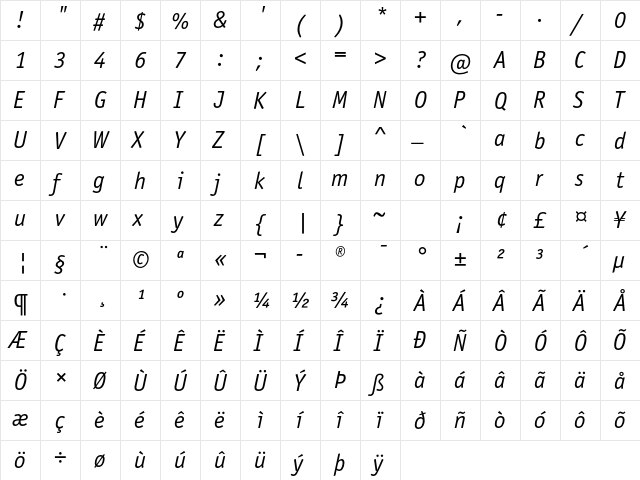
OfficinaSansITCStd BookItalic
| Designer | Erik Spiekermann and Ole Schaefer |
Design Context for OfficinaSansITCStd Typeface
OfficinaSansITCStd takes a measured approach to typography — its balanced proportions and neutral character make it a reliable workhorse for both digital and print work. The dynamic lean of this cut emphasises speed and emphasis in any layout.
Pro Tip: Try OfficinaSansITCStd for annotation and caption copy alongside an upright companion — the contrast in angle creates a dynamic but ordered typographic system.